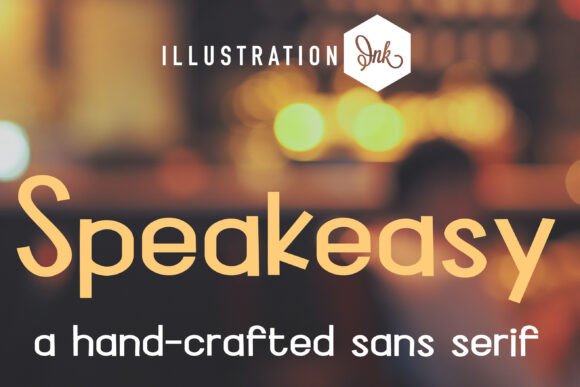
Speakeasy: A Hand-Crafted Sans Serif That Feels Like Home
There’s a quiet magic in the moment your candle label clicks—when the scent name, the wax blend, and the font all land at once. That’s when I opened Speakeasy for the first time. Not as code or a download, but as a design decision: soft curves, gentle weight contrast, and that unmistakable hand-crafted warmth. It wasn’t just another sans serif—it was the kind of typeface that makes “Small Batch Soy” feel personal, not printed.
Speakeasy is a hand-crafted sans serif with rounded terminals and subtle irregularities—the kind you’d expect from ink pressed gently onto paper by a steady hand. Its light and bold weights give real flexibility: use the light version for delicate botanical notes on tea packaging or planner headers; switch to bold for a farmhouse-style welcome board or a sticker sheet headline that holds up even at ¾ inch tall. It’s not rigid or mechanical. It breathes. And that breath matters—especially when your product lives in someone’s kitchen, bedroom, or gift drawer.
I used Speakeasy across three real projects last month: lavender-scented candle labels (printed on kraft sticker paper), a set of printable birthday cards for kids, and a digital wall art bundle themed around cozy reading nooks. Each time, the font carried the same feeling—inviting, unhurried, quietly confident. On candle labels, it softened the industrial edge of soy wax descriptions without losing clarity. On cards, its rounded shapes echoed hand-drawn illustrations without competing. And on wall art previews? It made “Read Slowly” look like advice whispered over hot cocoa—not a command typed into Canva.
As a maker, I care about how type behaves *in the world*, not just on screen. Speakeasy holds up beautifully on physical goods: it cuts cleanly on Cricut and Silhouette machines (no fragile serifs or thin joins to snap), prints crisply at small sizes (I tested down to 6 pt on matte cardstock for boutique tags), and stays legible on curved surfaces like mugs and tote bags. The bold weight especially shines on fabric—no blurring, no pixelation, just friendly presence. For seasonal work—think holiday gift tags or spring farmer’s market signs—it adds charm without clutter. And because it’s a true sans serif, it pairs effortlessly with clean supporting fonts: try it with a crisp geometric sans for shop signage, a warm serif like Playfair Display for wedding invitations, or a delicate script for envelope addressing.
What surprised me most was how naturally Speakeasy works across formats. On digital printables—planner pages, habit trackers, printable calendars—it gives structure without stiffness. On packaging, it elevates unbleached paper and twine without shouting. Even in mockup previews for Etsy listings, it helps customers *feel* the texture before they click “Add to Cart.” That’s the power of intentional typography: it doesn’t just say what your product is—it suggests how it should be held, read, gifted, or lived with.
It’s best suited for short-to-medium text: names, titles, slogans, labels, headings, and decorative phrases. Don’t lean on it for long paragraphs or fine-print legal text—but then again, neither do most handmade labels or greeting cards. Its strength is display use: the “Lavender + Vanilla” on your candle jar, the “You’re Invited” on a rustic wedding invite, the “Hand-Poured Since 2022” stamped on a reusable cotton bag. That’s where Speakeasy sings.
Pairing Speakeasy thoughtfully deepens your brand voice. With a simple serif like Cormorant Garamond, it grounds vintage-inspired stationery. With a modern sans like Inter or Poppins, it adds warmth to minimalist packaging. And layered under a delicate handwritten font—say, for a “Thank You” tag—it becomes the calm center of a thoughtful composition. The key is contrast without conflict: let Speakeasy hold the weight while other fonts add flair or function.
Real talk: not every font survives the jump from screen to shelf. Some blur on stickers. Some vanish on textured paper. Some feel cold next to hand-stamped logos or watercolor backgrounds. Speakeasy doesn’t fight those textures—it leans into them. Its rounded edges echo the softness of clay tags, its even spacing honors the rhythm of hand-lettered signs, and its human imperfection reminds people that real hands made this thing they’re holding.
Whether you’re designing a single batch of holiday ornaments or building a cohesive shop identity across labels, cards, and digital downloads, Speakeasy fits like a well-worn apron—functional, familiar, and full of quiet intention. It won’t shout over your product. It won’t distract from your craft. Instead, it’ll help your audience pause, smile, and remember—not just what they bought, but how it made them feel.
And sometimes, that’s the most handmade detail of all.